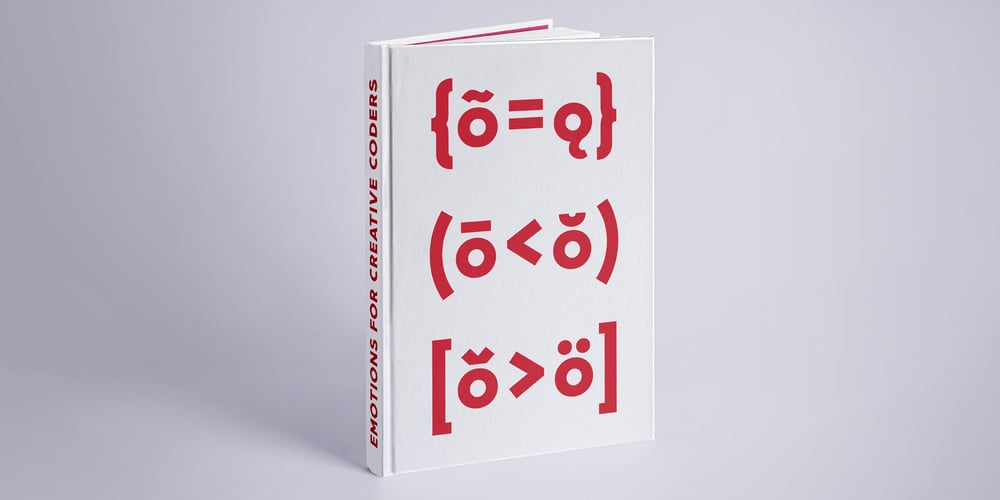
Vary Font Family was designed by Olli Meier and published by Monotype. Vary contains 10 styles and family package options. Vary by Olli Meier is a geometric sans serif typeface inspired by Bulgarian Cyrillic. Vary is fun and adaptable and was built with three feelings (variations): classic, modern, and loopy, offering an opportunity for designers to be playful in their creations. The inspiration in Bulgarian Cyrillic is seen mostly in the character “g,” which was inspired by a very uncommon handwritten “?” spotted by the designer in a shop window in Sofia, Bulgaria. When he flipped this design in 180°, the Latin character ‘g’ was born for Vary Another example is the “R” in the modern stylistic set, which was inspired by the handwritten Cyrillic character “?”.Vary is available as a variable font and also comes with 10 preset instances from Hairline to ExtraBlack.